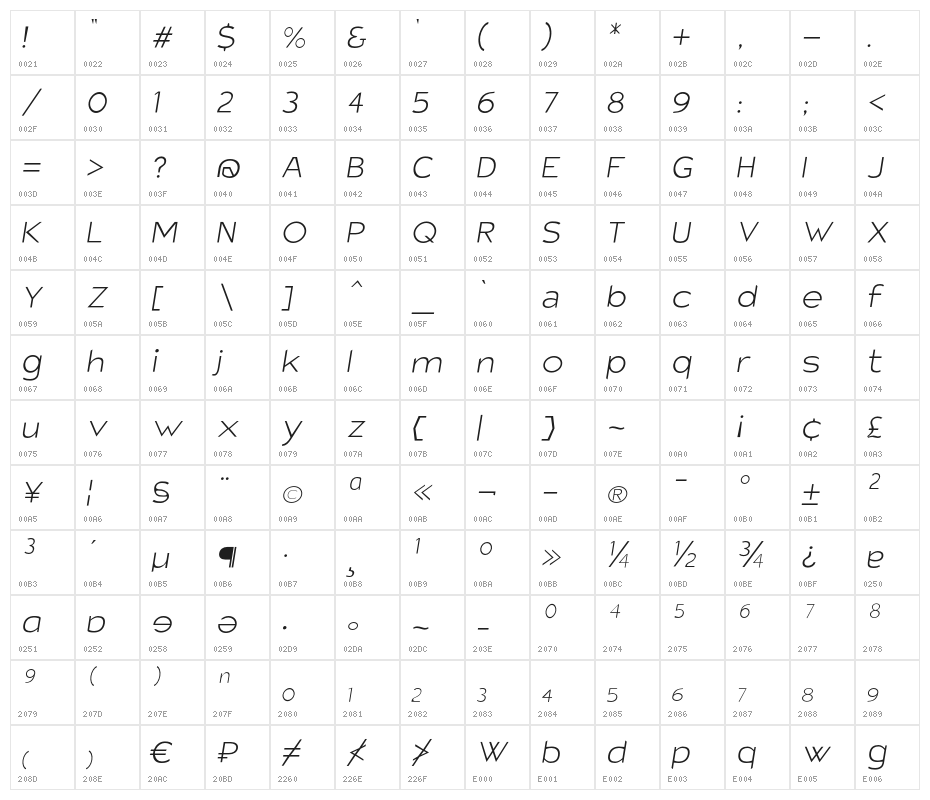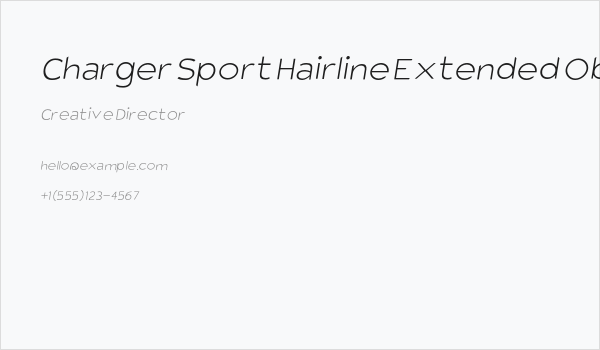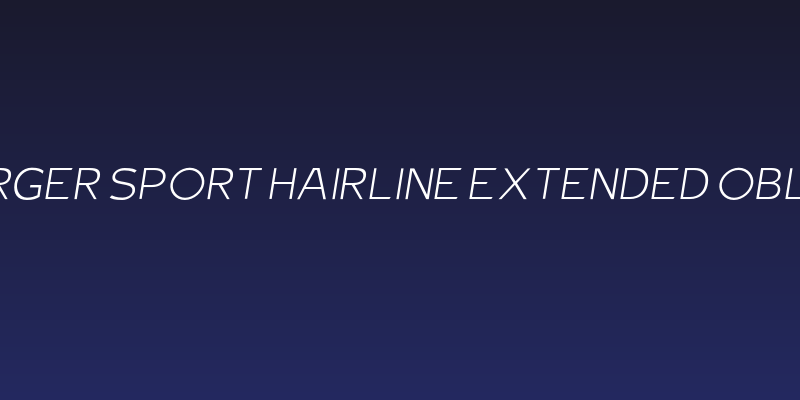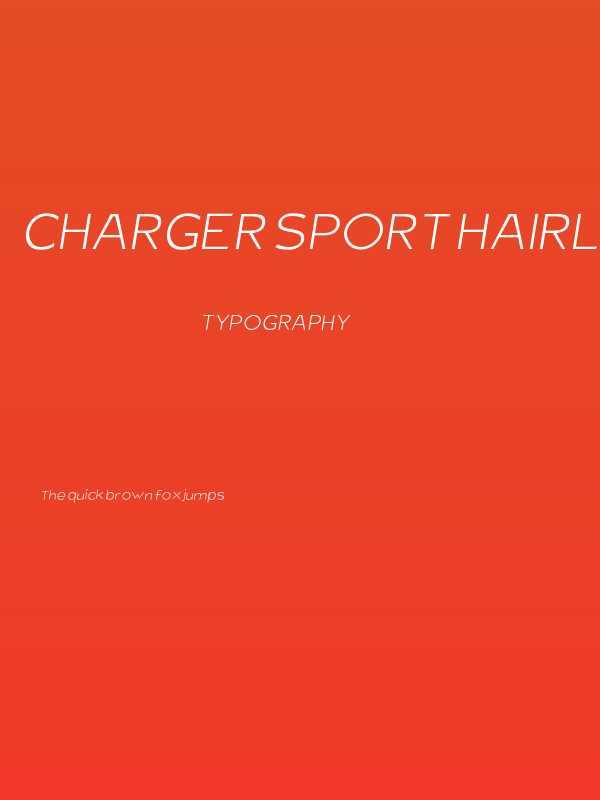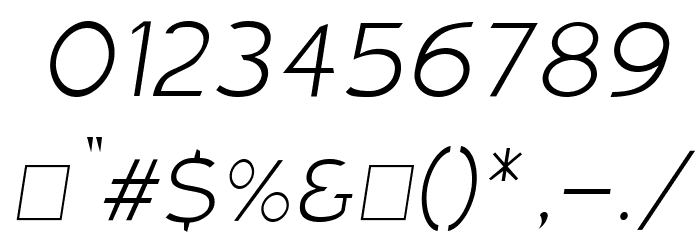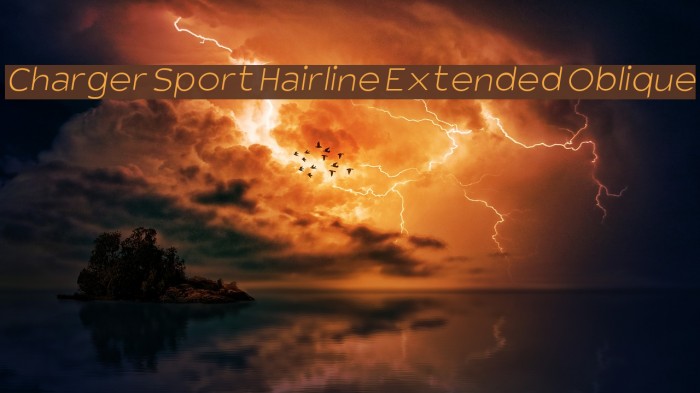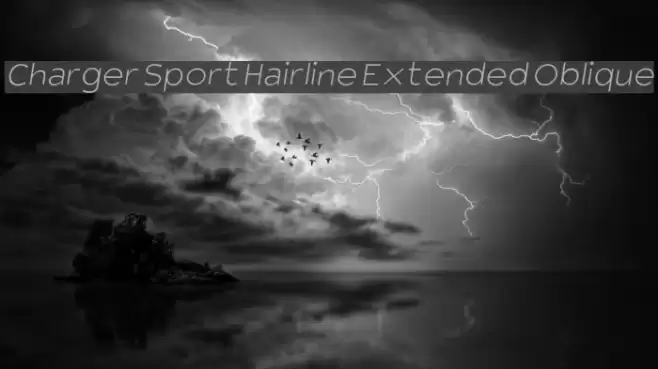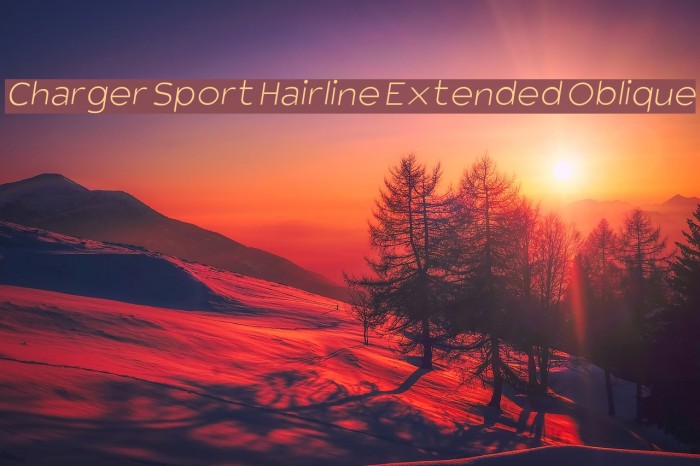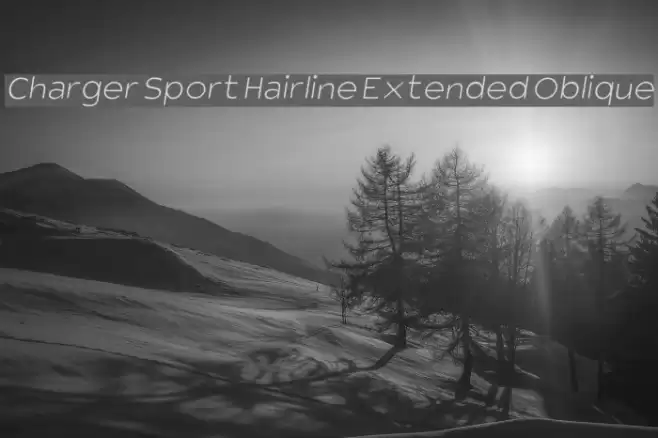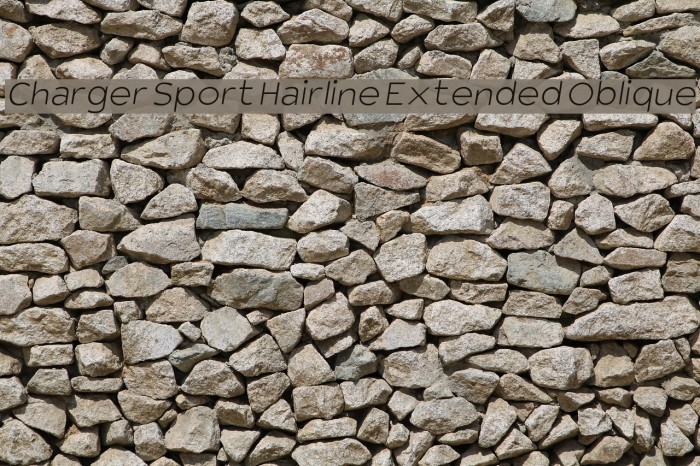
Charger Sport Hairline Extended Oblique Font
Charger Sport Hairline Extended Oblique Description
This font features a sleek, modern design with an oblique orientation, giving it a dynamic and forward-leaning appearance. The hairline strokes contribute to its light and airy feel, while the extended width adds a sense of openness and readability. The characters are well-proportioned, with a consistent stroke width that maintains clarity and elegance. The uppercase and lowercase letters are distinct yet harmonious, and the numerals are clear and easily distinguishable. Special characters are included, enhancing its versatility for various design needs. This font's style is ideal for projects that require a contemporary and sophisticated look.